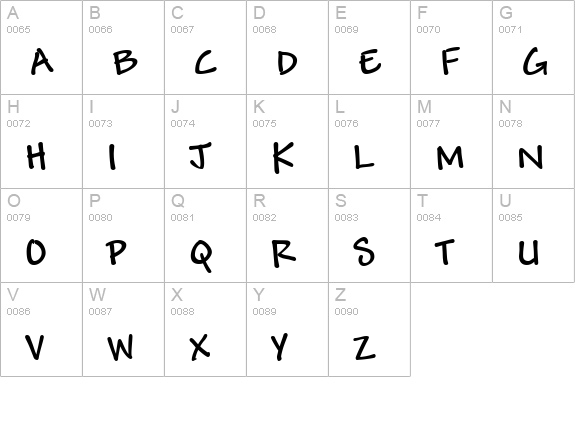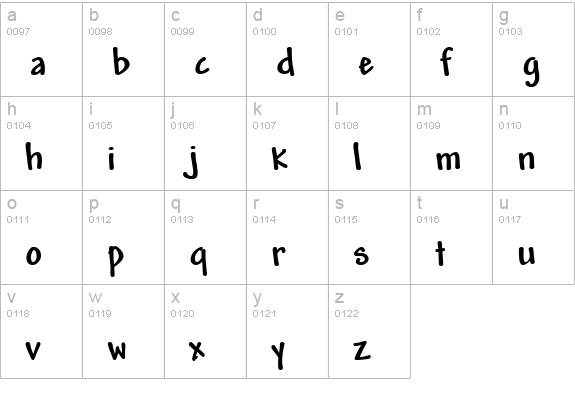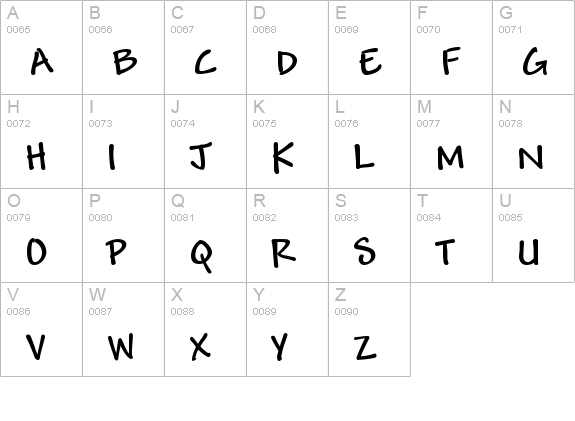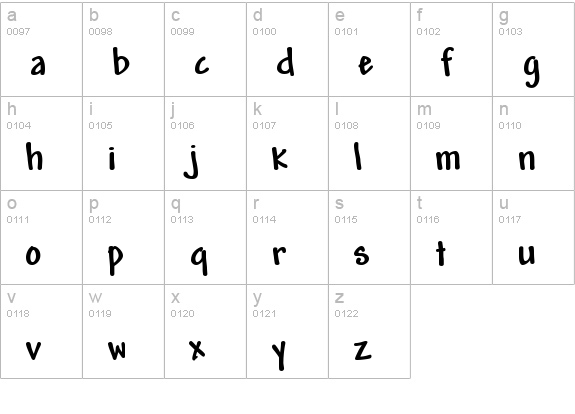
Andy Bold Font Details
Andy Bold is a strong, high-contrast variant in the Andy typeface family \xE2\x80\x94 well suited to headlines, attention-grabbing titles, and strong calls-to-action.
Introducing Andy Bold font, a versatile and modern typeface designed to make your projects stand out. This bold and impactful font exudes confidence and creativity, making it perfect for a wide range of design applications. With its clean lines and strong presence, Andy Bold font is sure to make a statement on any project. Whether you're designing logos, posters, invitations, or any other creative endeavor, Andy Bold font will elevate your work with its bold and dynamic character. Its versatility allows it to be used in both headline and body text, giving you the freedom to express your ideas with clarity and style. Best of all, Andy Bold font is available for free download at FontsMarket.com, making it accessible to designers of all levels. Don't miss out on this fantastic opportunity to add a touch of boldness to your projects with Andy Bold font. Download it now and let your creativity shine!